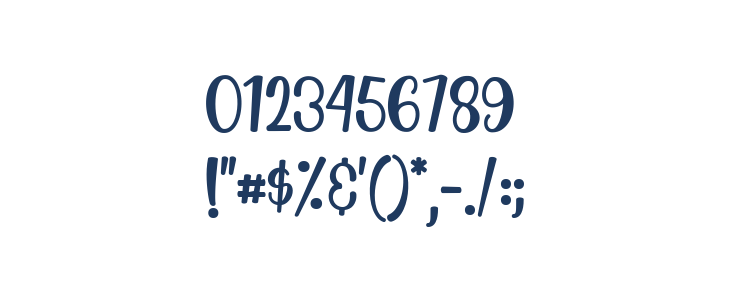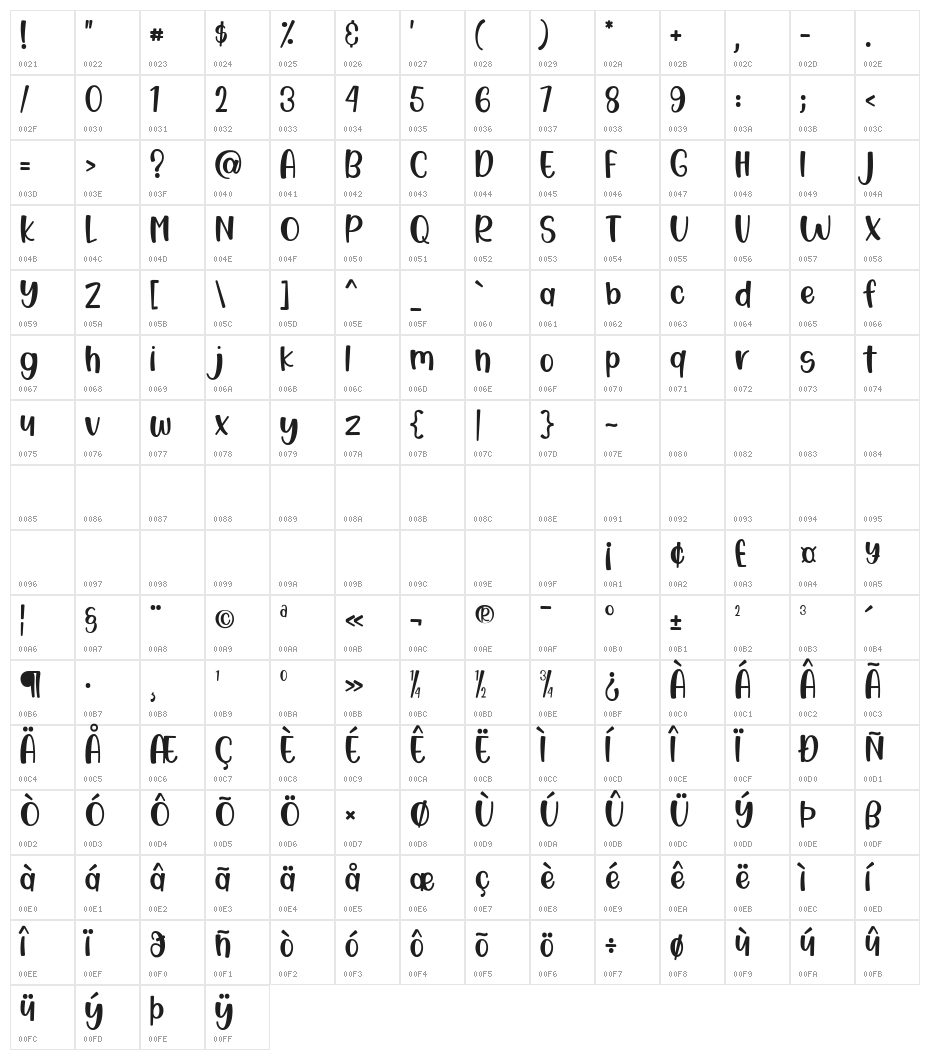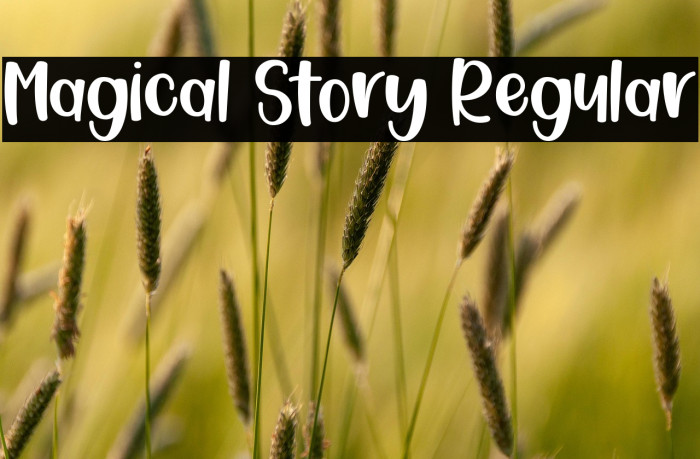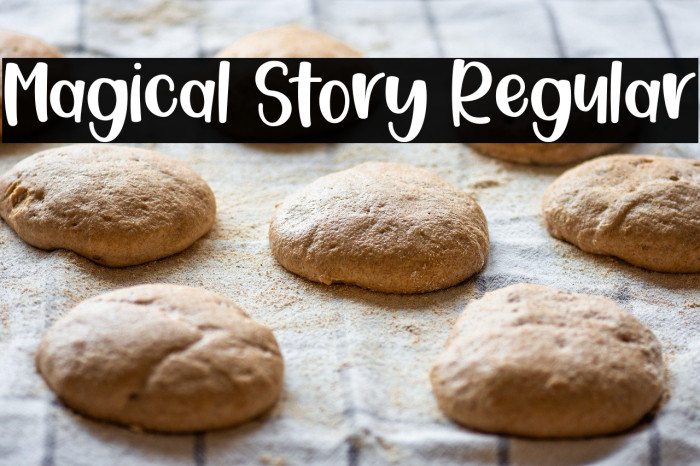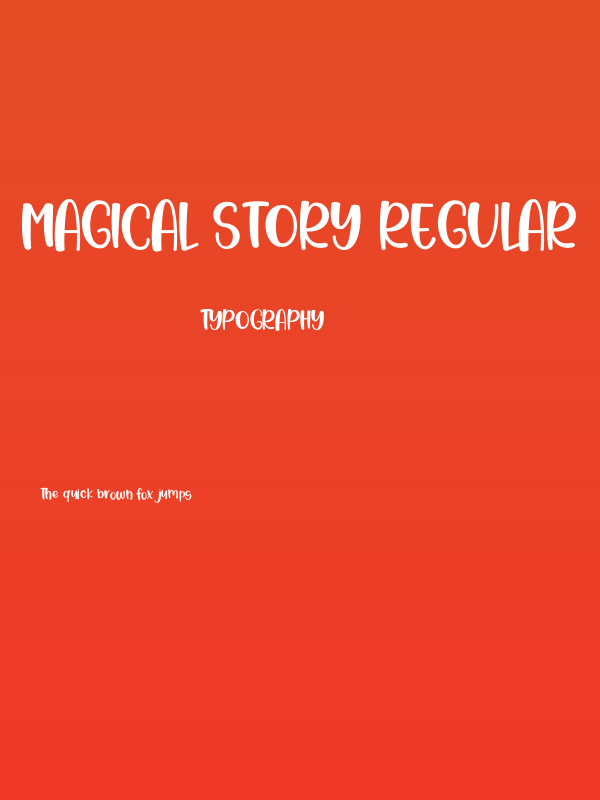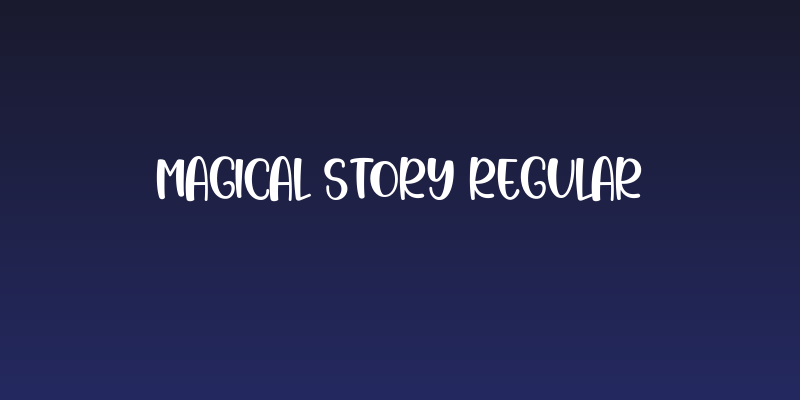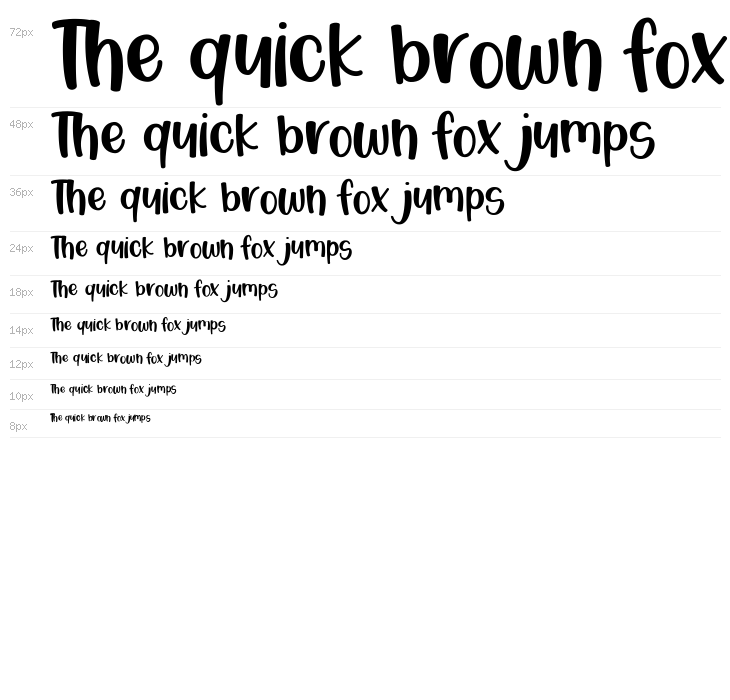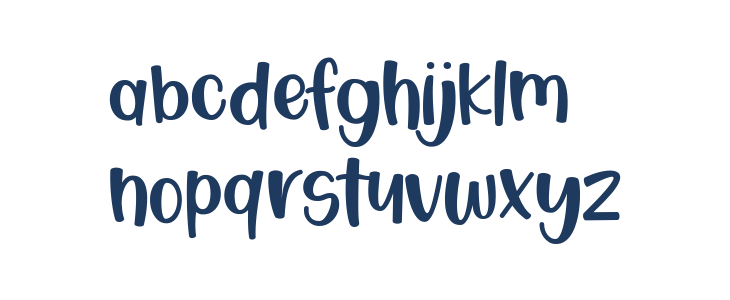
Magical Story Regular Font
Magical Story Regular Description
This font exudes a playful and whimsical charm, characterized by its bold and rounded letterforms. The strokes are thick and consistent, giving it a strong presence on the page. The uppercase and lowercase letters maintain a cohesive style, with slight variations that add to its quirky appeal. The numbers and special characters are designed with the same playful aesthetic, making it versatile for various uses. Its unique style is perfect for capturing attention and conveying a sense of fun and creativity.